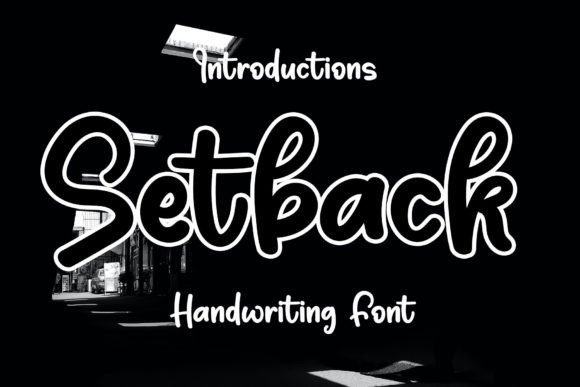
Behold, Setback Font, the ultimate display font that breathes life into your creative endeavors! Experience the charm of Setback, a font that seamlessly blends elegance with a touch of playfulness. Picture this, your website adorned with Setback's captivating letters, drawing visitors in like moths to a flame. They'll be mesmerized by the font's artistic flair, adding a unique touch that sets your website apart from the mundane.
Unleash your creativity with Setback, the font that knows no bounds. Whether you're designing logos, crafting brochures, or creating social media graphics, Setback gracefully adapts to your vision. Its versatile nature makes it the perfect companion for any project, effortlessly elevating your designs and leaving a lasting impression.
Step into a world of sophistication with Setback, the font that commands attention in the world of typography. Its refined curves and sharp edges dance together in perfect harmony, creating a visual symphony that captivates the eye. Elevate your brand's identity with Setback, projecting an image of professionalism and excellence that resonates with your audience.
Embrace the power of Setback, the font that transforms the ordinary into the extraordinary. Its ability to effortlessly capture attention makes it the ideal choice for headlines, posters, and advertisements. Watch as your words leap off the page, demanding attention and leaving an unforgettable mark on your audience's minds.